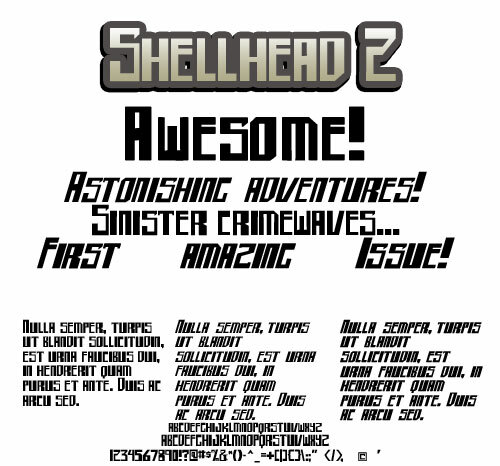
Shellhead 2 Bold by Teabeer Studios is a free heavy techno display font with towering, tightly packed letterforms, squared shoulders, and the blunt force of industrial signage or oversized machinery labels. Broad, nearly uniform vertical strokes dominate the design, and tight rectangular openings, clipped corners, deep notches, and narrow slots make the dense letters resemble panels cut from sheet metal.
Science-fiction game titles are its strongest setting, followed by music posters. The same severe geometry fits esports graphics and action merchandise, especially for gaming hardware or performance gear brands seeking a logo-like product identity rather than conventional corporate lettering or neutral labels.